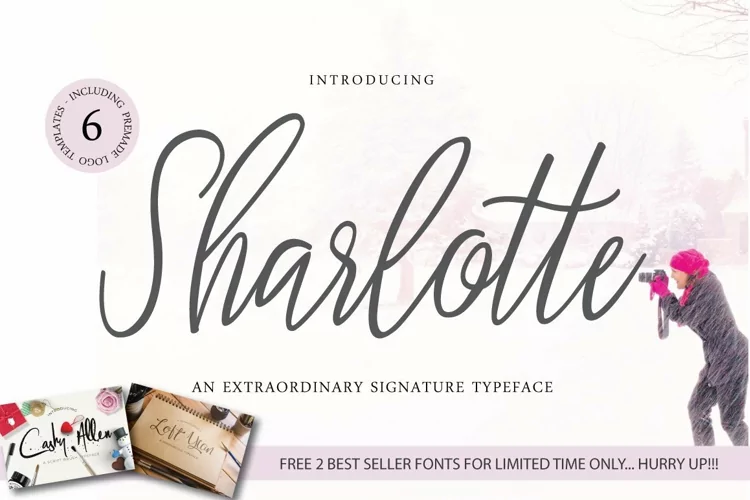
Sharlotte is a modern extraordinary script signature typeface designed with care is guaranteed to give you in creating beautiful hand-made typography within a second.
Sharlotte